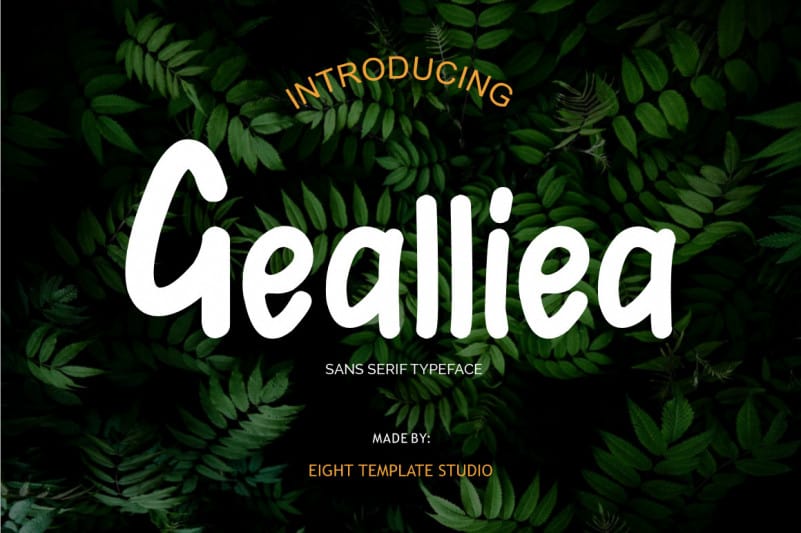
Gealliea Script Font
Hello, Gealliea Script Font is a sans serif hand-written font created for your needs. Gealliea is perfect for logos for branding, typographic designs, badge designs, product packaging, invitations, offers, t-shirt designs, label posters, special events, and whatever you want to need.